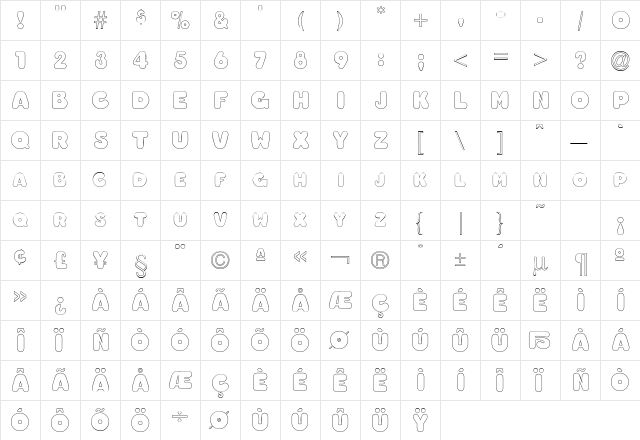
OleadaOutlineSCapsSSK Regular
Design Context for OleadaOutlineSCapsSSK Typeface
OleadaOutlineSCapsSSK is built around its visual character rather than neutral utility — its distinctive forms are designed to make an impression at display sizes.
Font Pairing: Pair with a clean neutral sans-serif for body copy to let OleadaOutlineSCapsSSK's character lead without overwhelming the composition.
Pro Tip: Treat OleadaOutlineSCapsSSK as the centrepiece of your typographic hierarchy. One strong heading set in a decorative face can carry an entire layout.